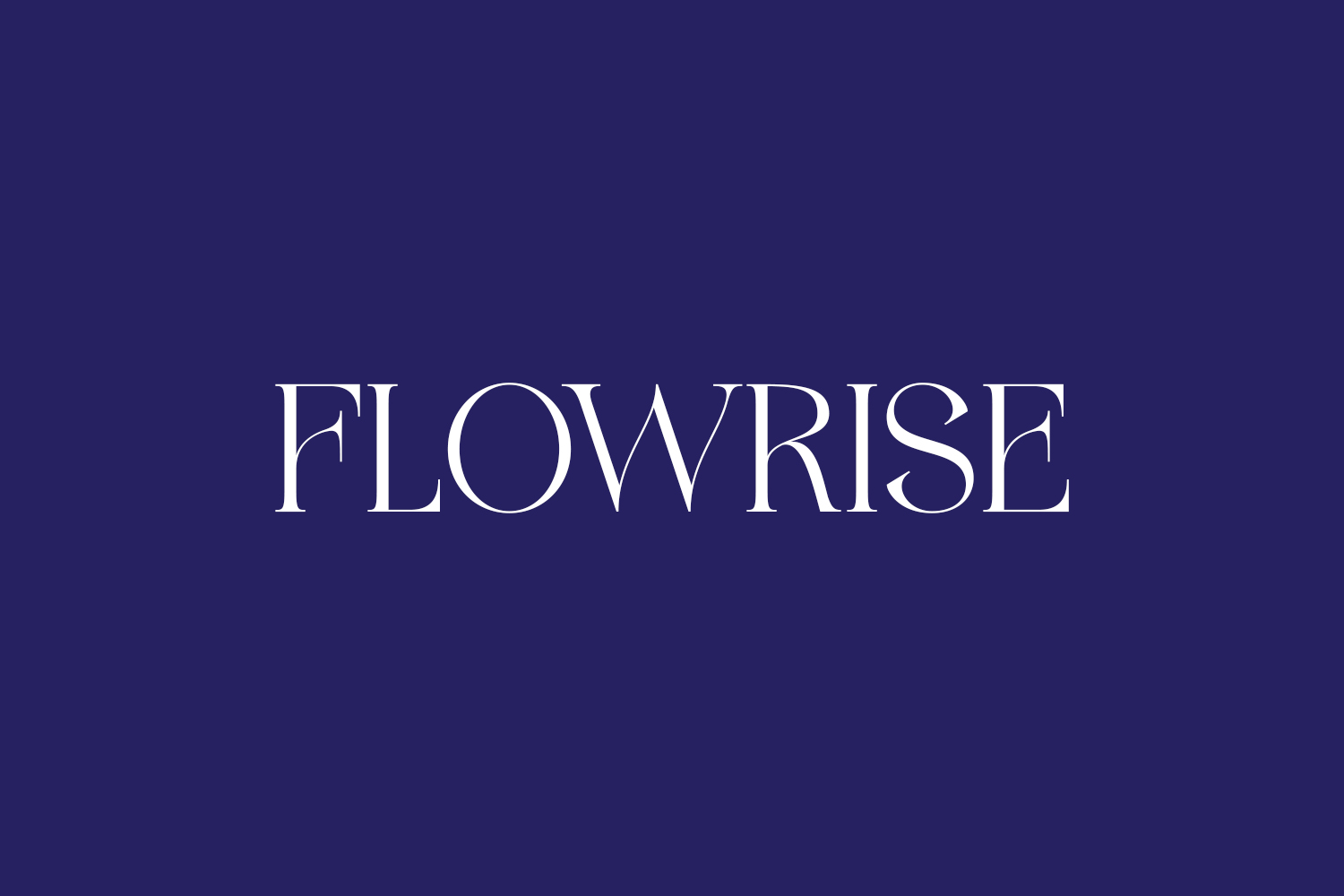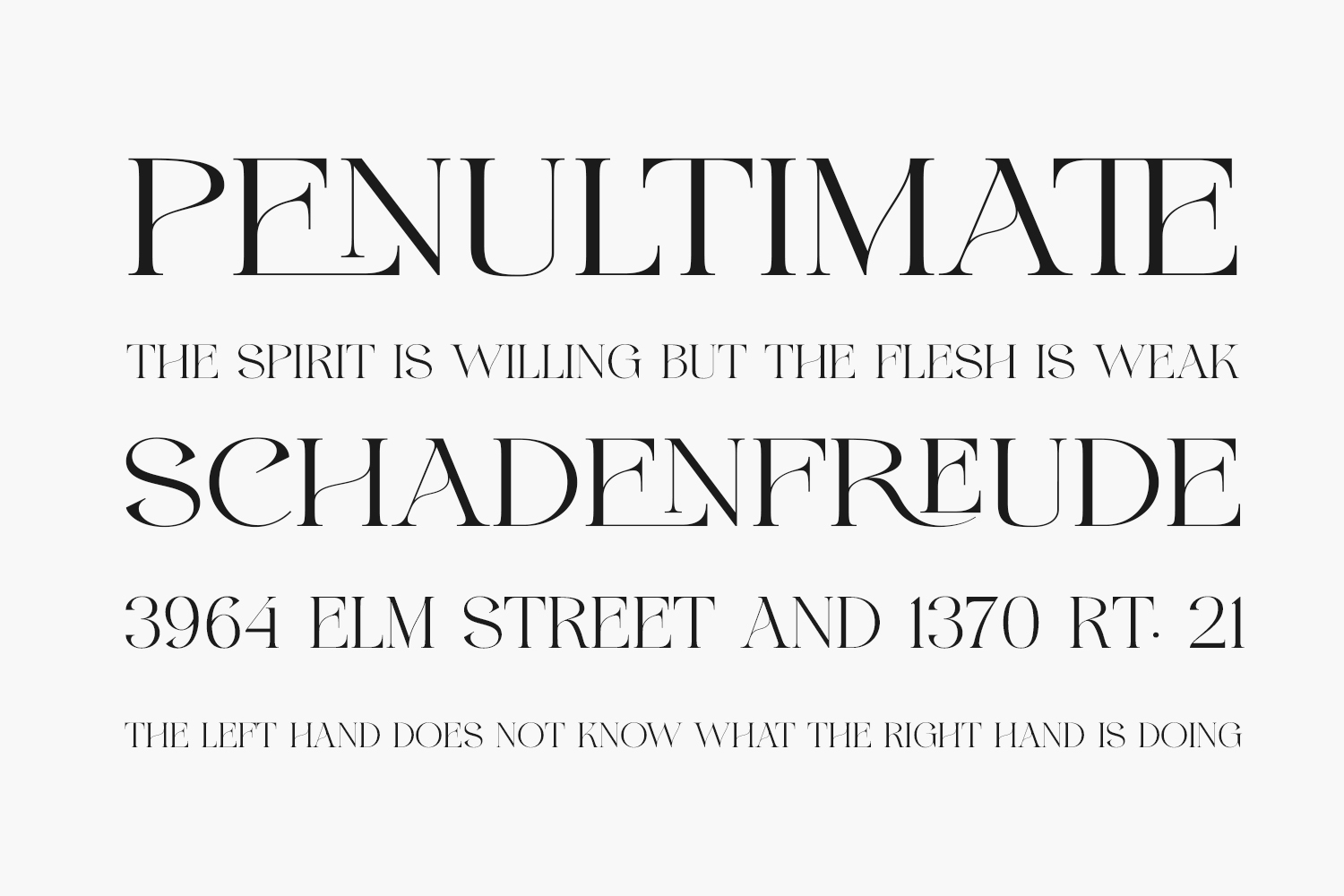
Introducing Flowrise Free Font, a fresh condensate font featuring graceful curves that exude elegance and luxury. This distinctive font is tailor-made for crafting stunning logotypes, captivating magazine designs, eye-catching titles, and impactful branding. Elevate your projects with Flowrise, your go-to solution enriched with a diverse range of alternative characters and ligatures. Flowrise Free Font is free for personal use only. Please purchase the full version for commercial use.